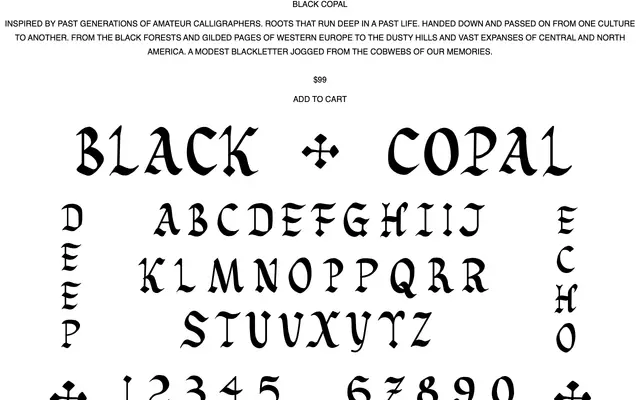
Black Copal
A calligraphic blackletter rooted in European manuscript tradition and filtered through a Central and North American cultural lens.
Black Copal draws on the legacy of amateur calligraphy, tracing a lineage from the blackletter scripts of Western Europe through to the American continent. The foundry frames it as a modest, memory-hewn form, passed between cultures rather than institutionally refined. Suited to display work where historical gravity and handmade warmth are both required.
The foundry explicitly describes it as a blackletter, tracing its lineage from Western European black-letter traditions through to the Americas. The name and descriptive copy confirm a calligraphic blackletter form.